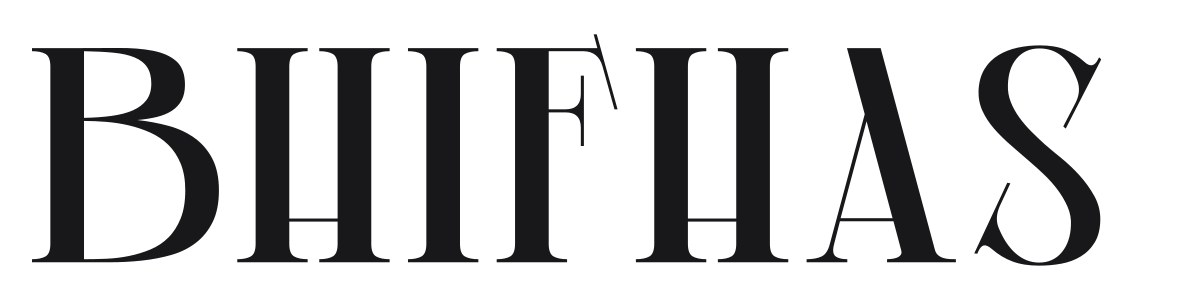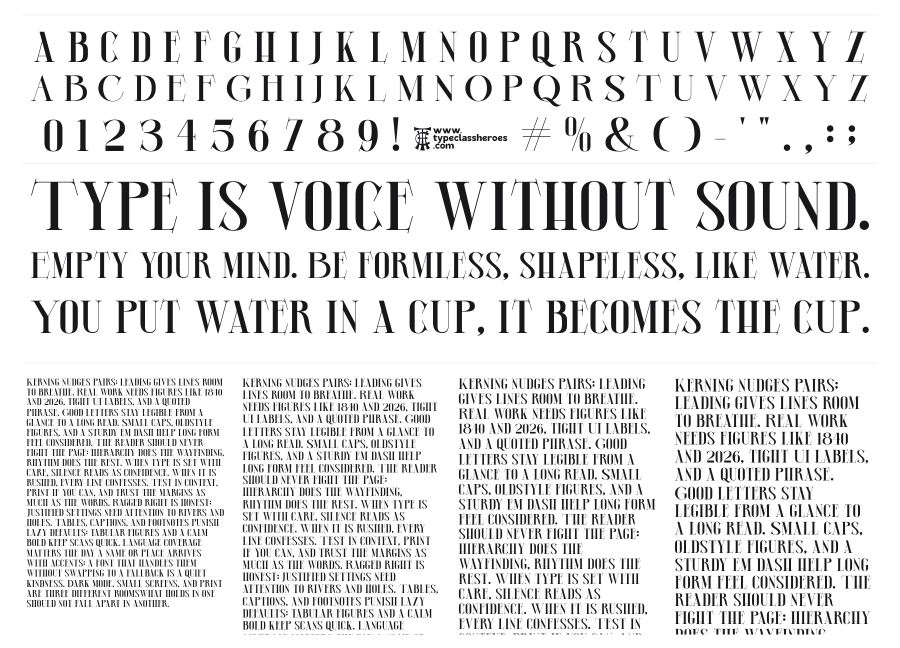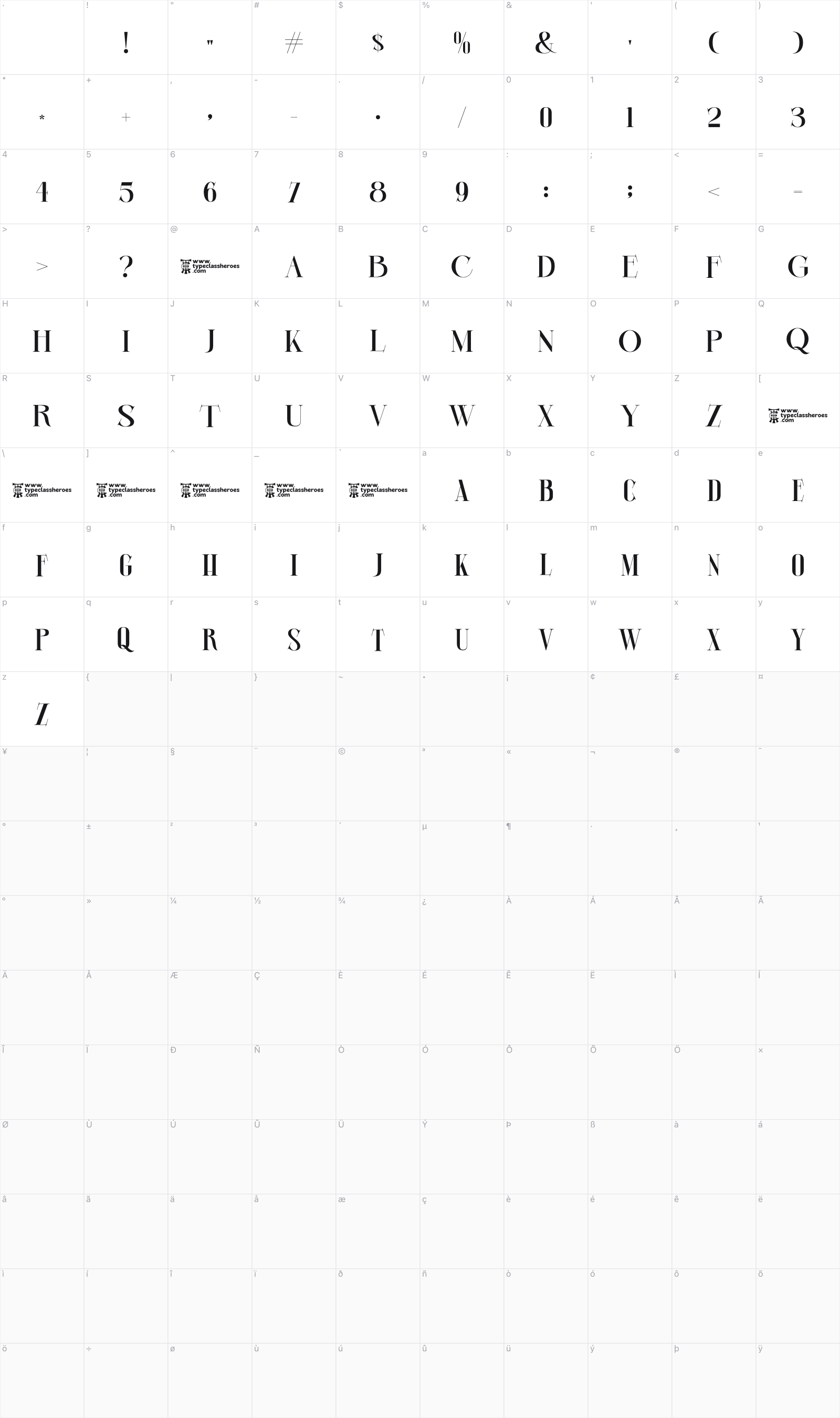
Bhifhas
Bhifhas is a condensed Didone-style display serif with extreme stroke contrast and dramatic vertical proportions. Razor-thin hairlines sit alongside heavy stems, creating the kind of structural tension that defines high-fashion typography. It draws from the same neoclassical tradition as Bodoni and Didot, but pushed into a tighter, more contemporary silhouette.